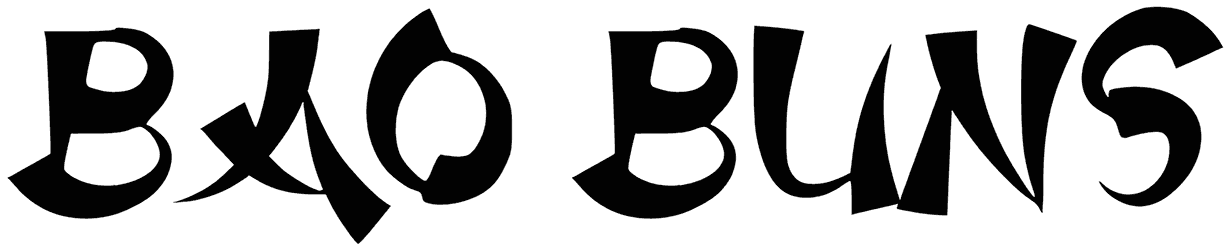
b Bao Buns Font
If you are fascinated by Chinese and Japanese writings and want to explore them, b Bao Buns can do the trick. The different thicknesses of this Japanese font create a foreign manuscript and make viewers eager to discover its message.
Due to its unusual appearance, this font isn’t hampered by a lack of small letters and can upgrade your projects to the next level. So fill a space on your book cover, t-shirt, or album with b Bao Buns right now.